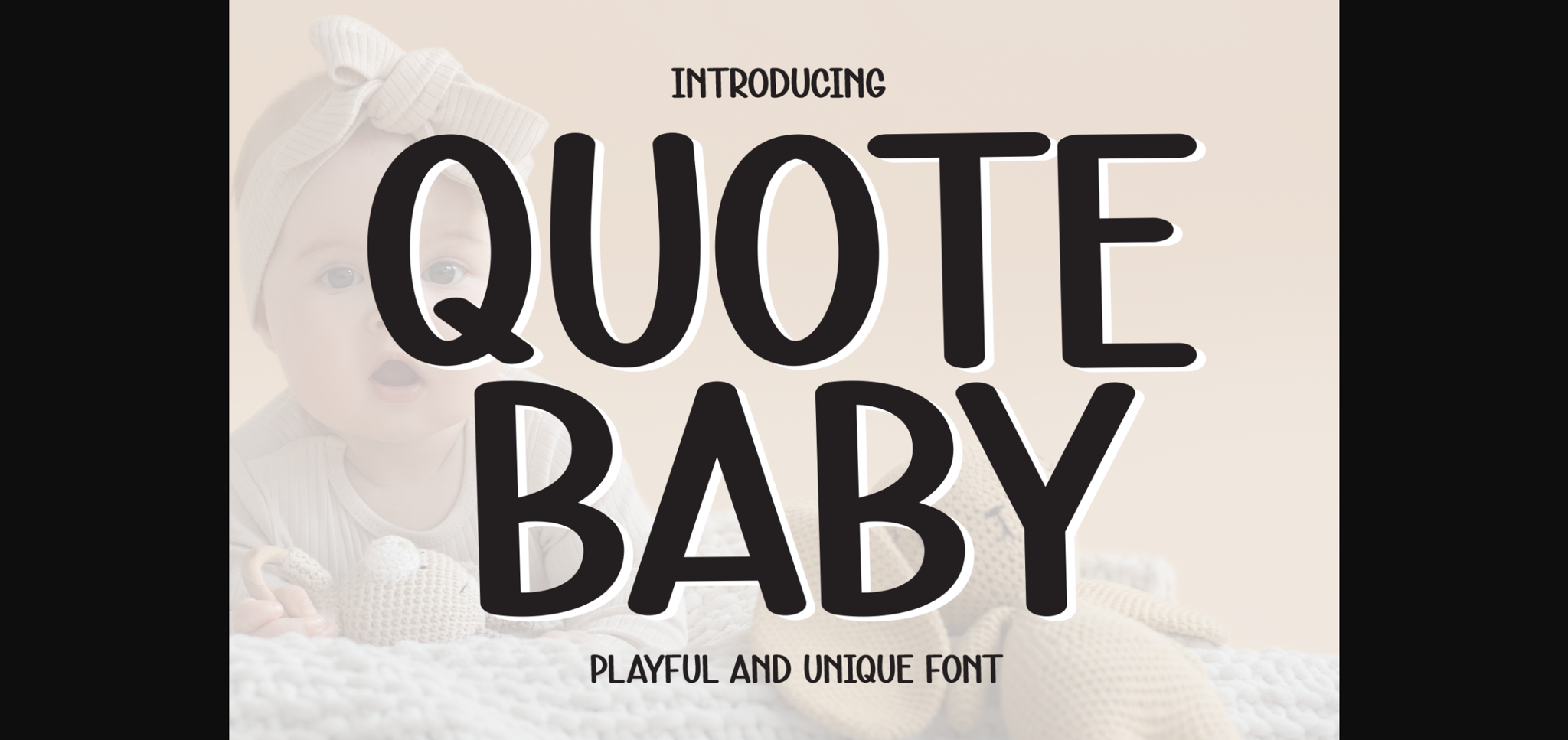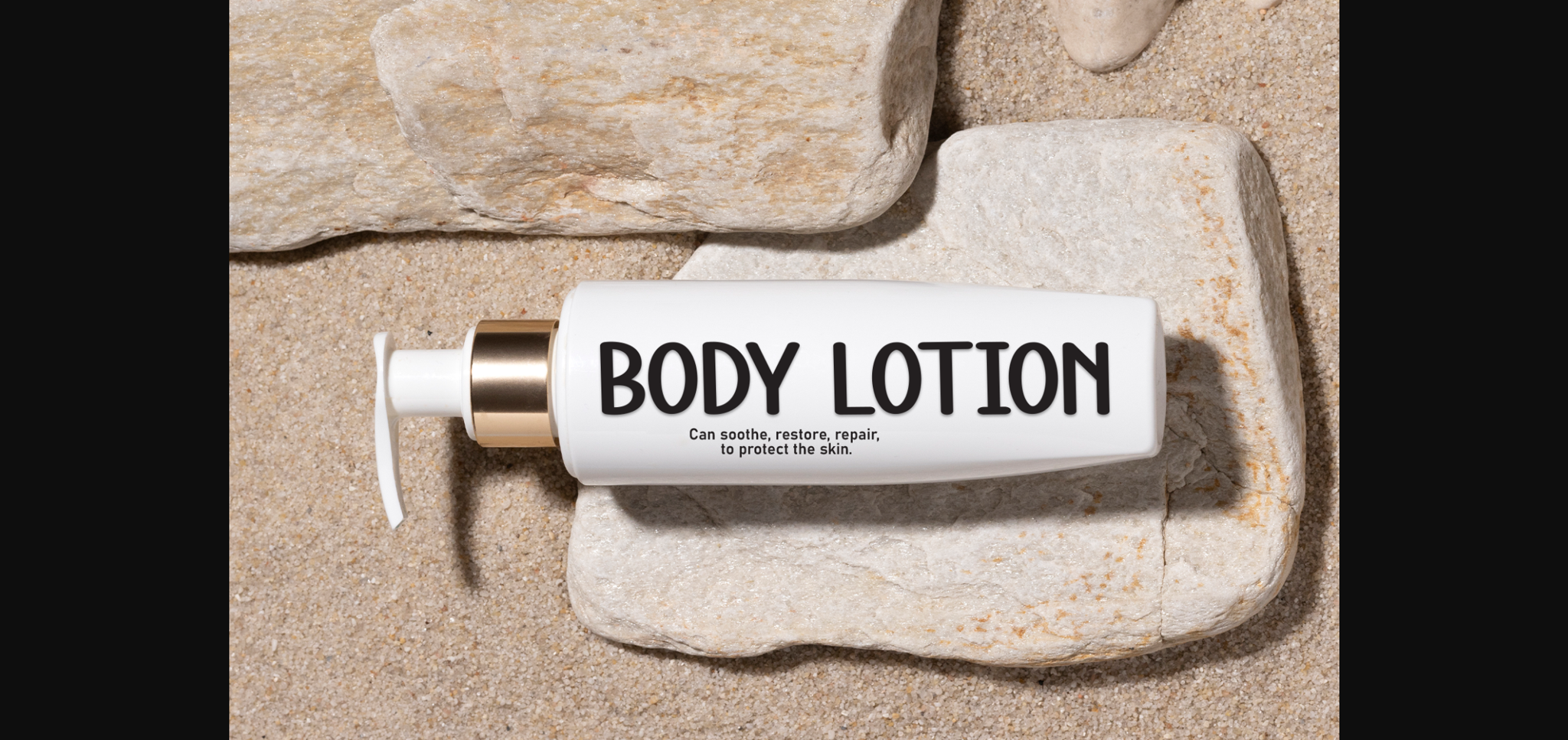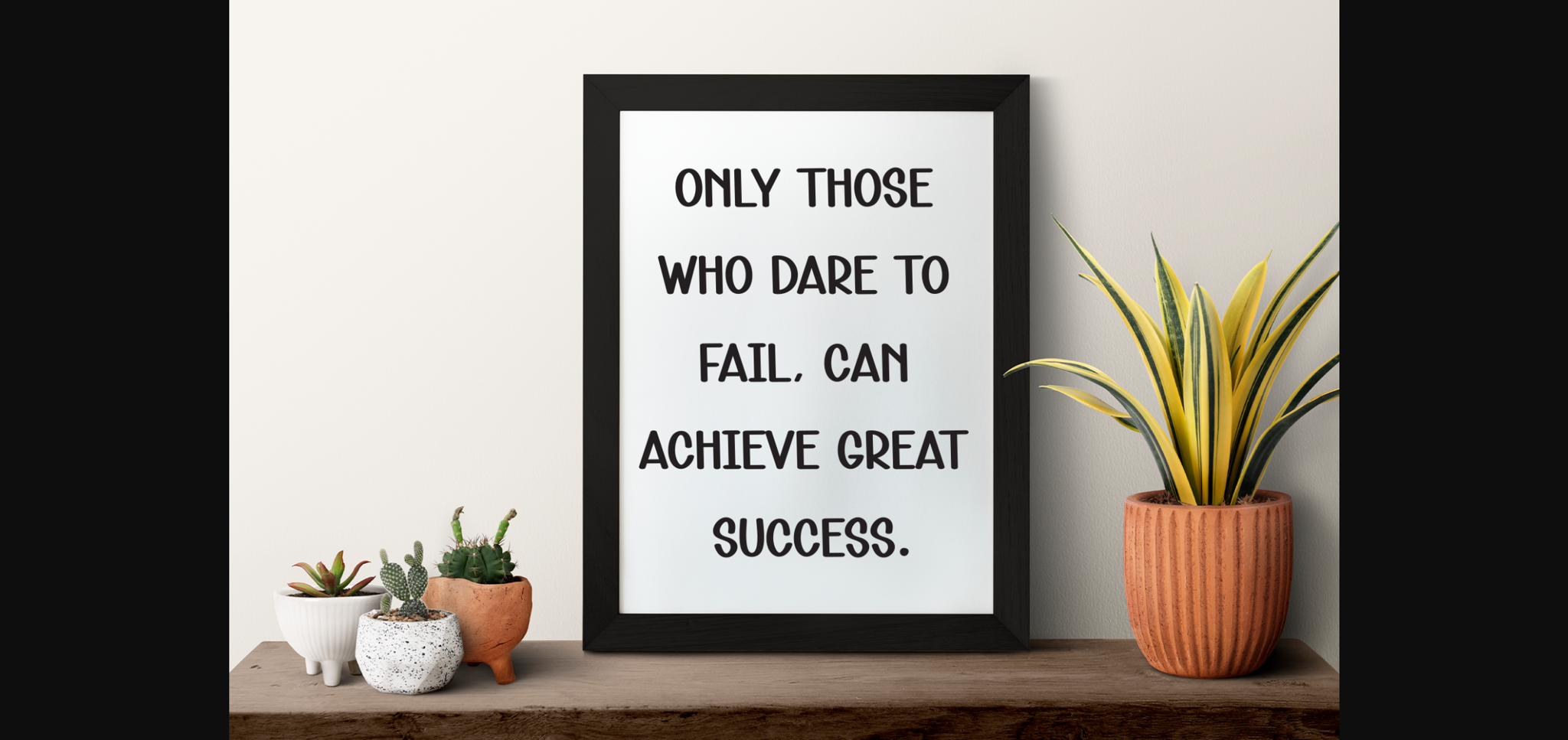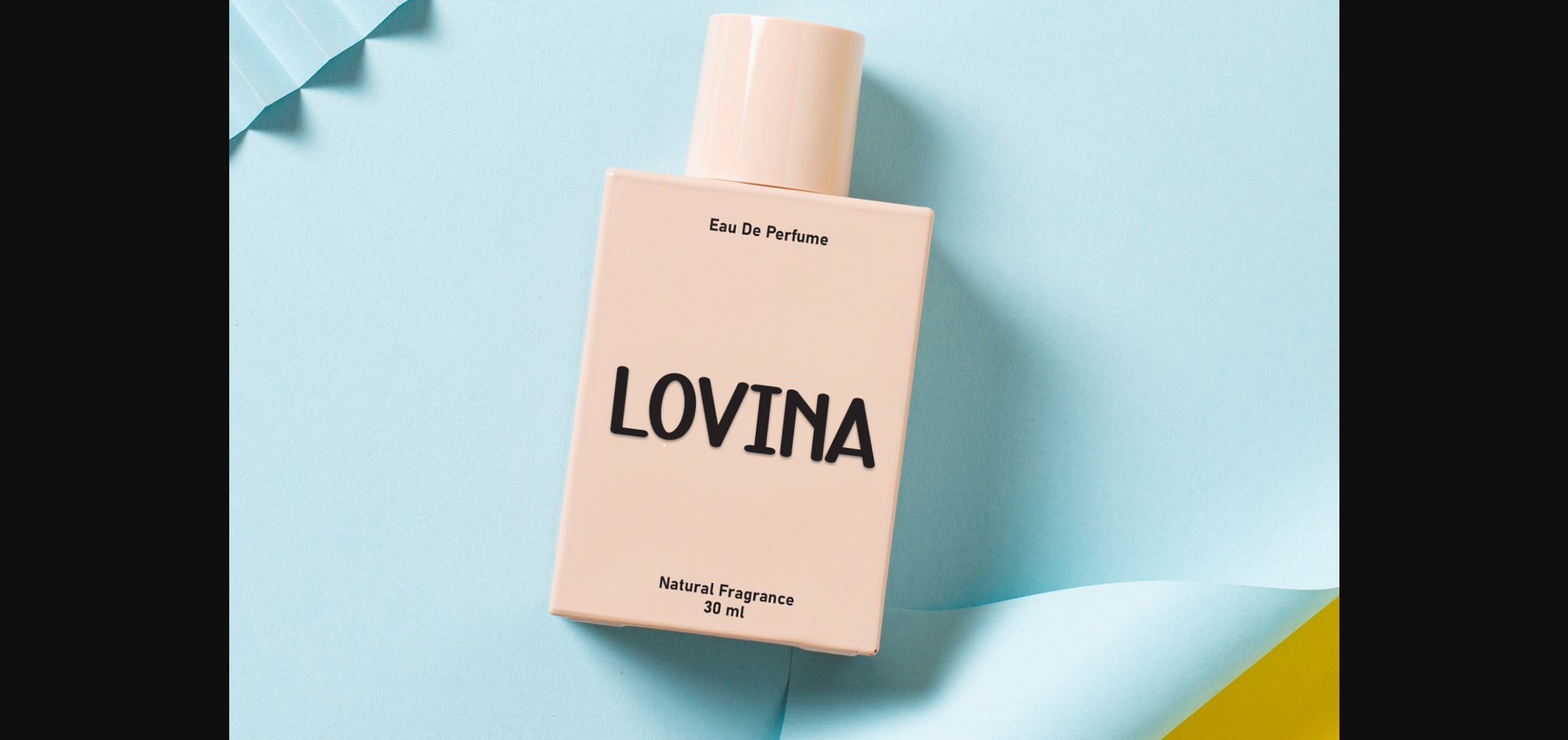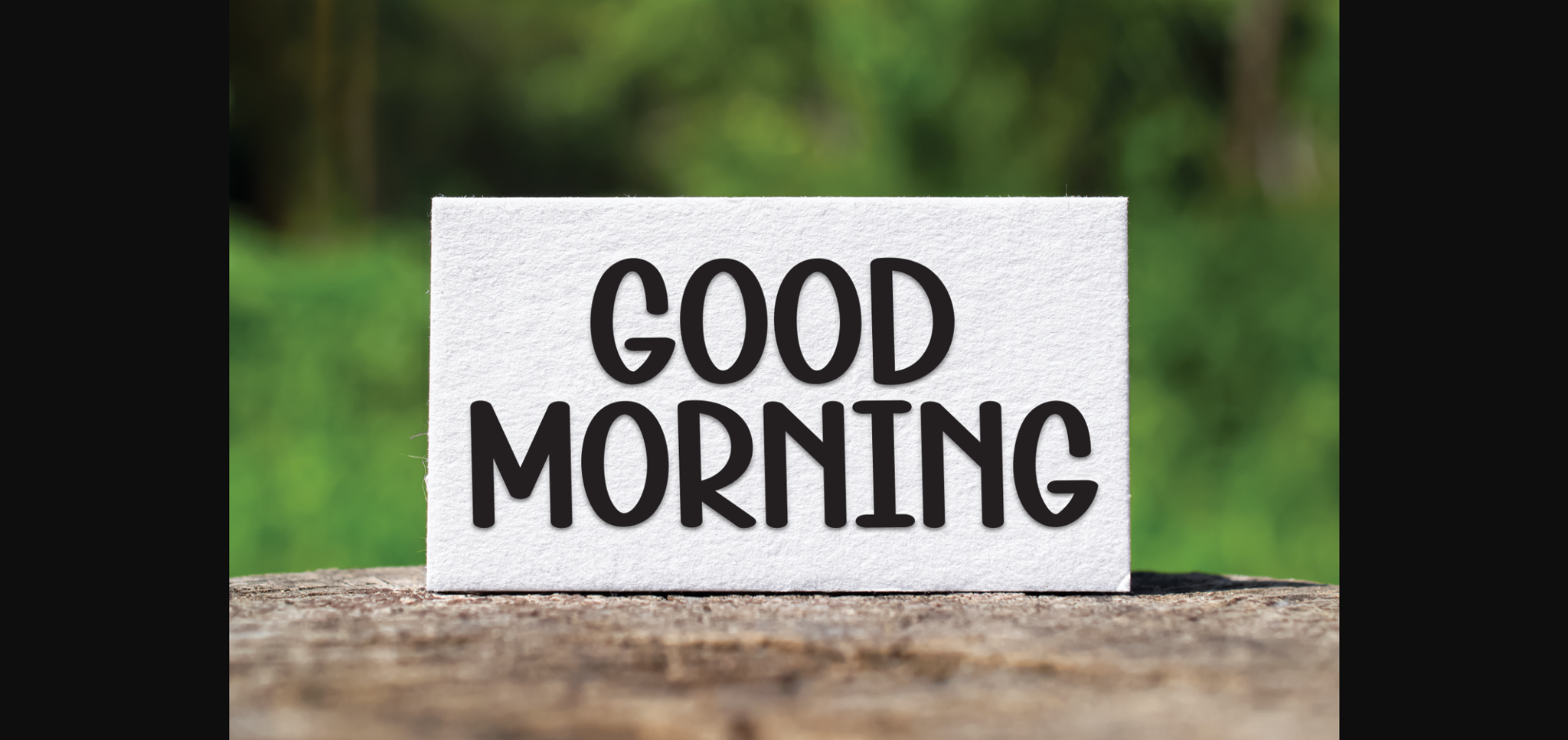
About Quote Baby Font
Quote Baby is a neat and casual sans-serif font that combines simplicity with a touch of warmth. With clean lines and balanced proportions, it exudes a friendly and approachable vibe. Perfect for various design projects, Quote Baby brings a modern and versatile style to your typography repertoire.